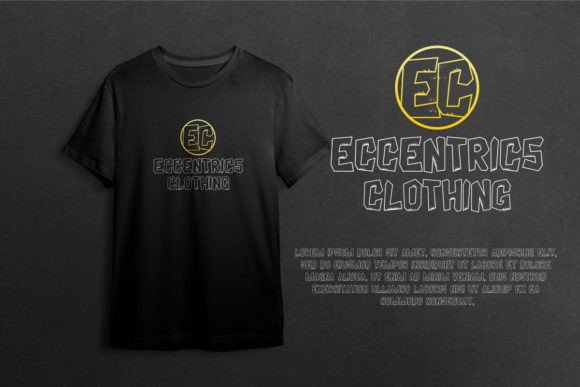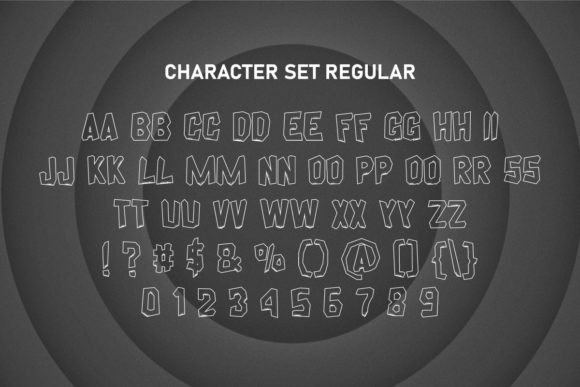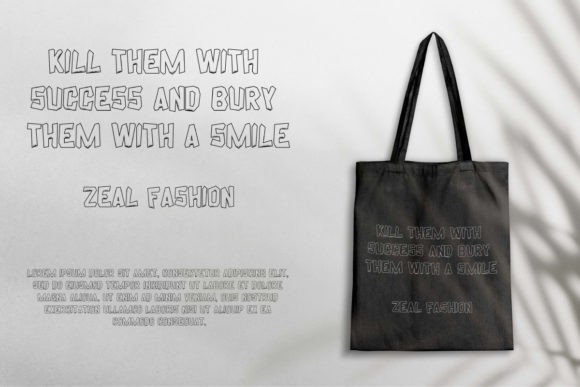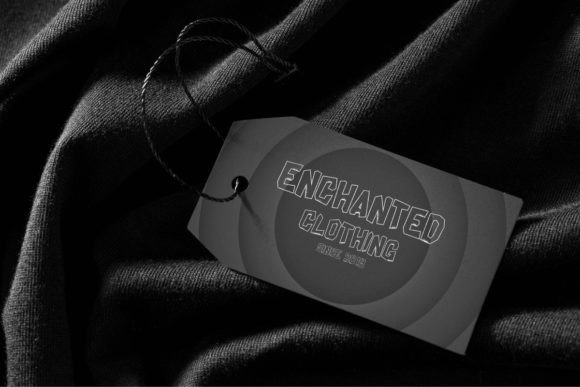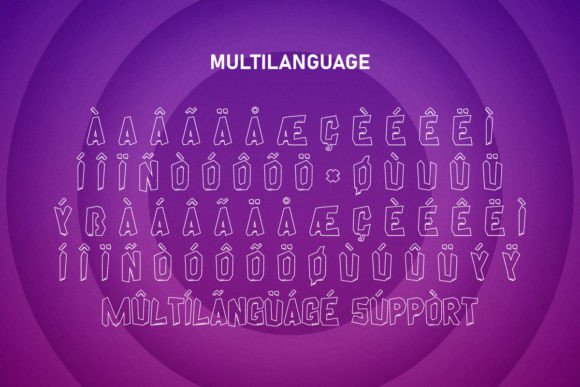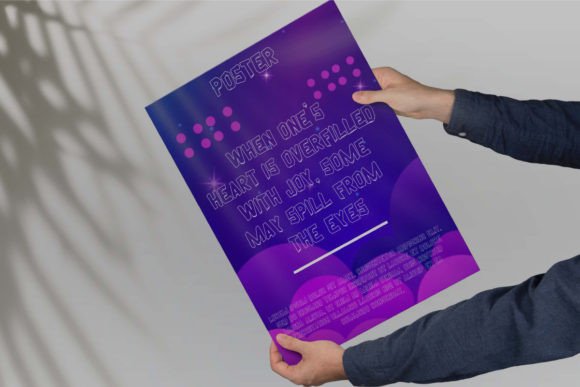
Introduction to Silly Fun Font
Silly Fun Font is a fun and playful cartoon display font with a unique style inspired by the Stone Age.
Key Features of Silly Fun Font
Why Choose Silly Fun Font?
Silly Fun Font offers exceptional quality and versatility, making it a valuable addition to your design toolkit. Whether you’re creating for personal projects or commercial use, Silly Fun Font delivers professional results.